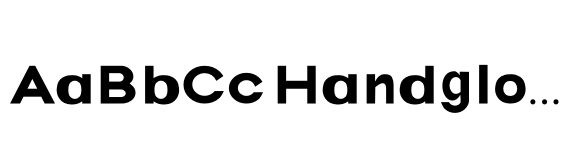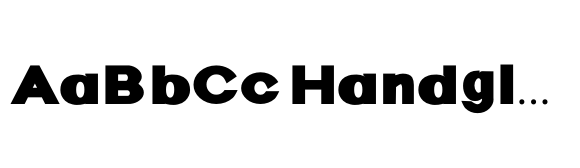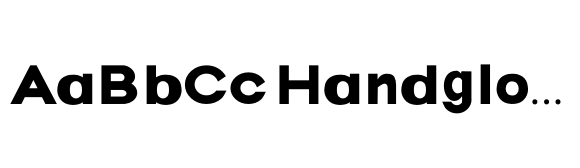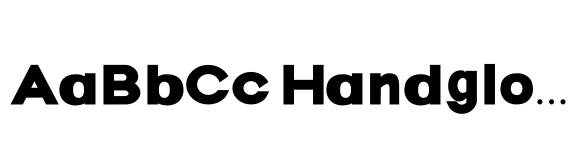
TE Cathrine 2
by Tharwat Emara
The TE Cathrine 2 Font Family was designed by Tharwat Mohamed Emara and published by Tharwat Emara. TE Cathrine 2 contains 5 styles and family package options. More about this family
This font may be conservative and classic, but also may be more playful and modern. It is good for theater or art posters and for modern music, web-pictures or vinyl covers. Of course it also will be good for coffee shops, cafe's, restaurants, magazine's headers, signs or gift/post cards and weddings.
Try to use it in your beauty or travel blogs, you will see how many options you will have with stylish CATHRINE2
Tharwat Emara is an esteemed Egyptian calligrapher, renowned for his exceptional work in the field of Arabic calligraphy. He is recognized for his unique style and his ability to seamlessly blend tradition with innovation, resulting in a body of work that is both timeless and contemporary.Born in Egypt, Tharwat Emara developed a passion for calligraphy at a young age. He honed his skills through years of dedicated practice and study, eventually becoming one of the most prominent calligraphers in the country. His work has been exhibited around the world, and his fonts have been used in a variety of media, including books, advertisements, and logos.What sets Tharwat Emara apart from other calligraphers is his ability to create fonts that are both beautiful and functional. He understands that calligraphy is not just an art form, but a means of communication, and his fonts reflect this understanding. They are clear, legible, and easy to read, while also retaining the aesthetic beauty that is so important to the art of calligraphy.Tharwat Emara's fonts are also notable for their versatility. He has created fonts that are suitable for a wide range of applications, from elegant wedding invitations to bold, modern advertising campaigns. Whether you're looking for a font that is classic and timeless or something that is cutting-edge and contemporary, Tharwat Emara has a font that will suit your needs. One of the things that makes Tharwat Emara's fonts so special is the attention to detail that he puts into every design. He understands that each letter is a work of art in itself, and he approaches each design with the same level of care and precision that he would if he were creating a standalone piece of calligraphy. This attention to detail ensures that each font is not only beautiful, but also functional and easy to use. In addition to his work as a calligrapher, Tharwat Emara is also an accomplished teacher. He has taught calligraphy to students around the world, and his workshops are highly sought-after by both beginners and experienced calligraphers. His approach to teaching is based on his belief that calligraphy is a discipline that requires patience, dedication, and a willingness to learn from both success and failure. He encourages his students to explore their creativity and to find their own unique style, while also providing them with the technical skills they need to create beautiful calligraphy.If you're looking for a calligrapher who combines tradition with innovation, who creates fonts that are both beautiful and functional, and who approaches his work with the utmost care and precision, then Tharwat Emara is the perfect choice. His fonts are among the most distinctive and recognizable in the world of Arabic calligraphy, and they are sure to add a touch of elegance and sophistication to any project.